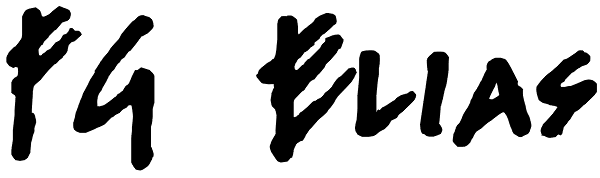
FG Elias
FG Elias is an all caps font from handwriting which looks a bit angry I think. It has a size variation between the caps and lowercase. Works great for headers or text you want to emphasize.